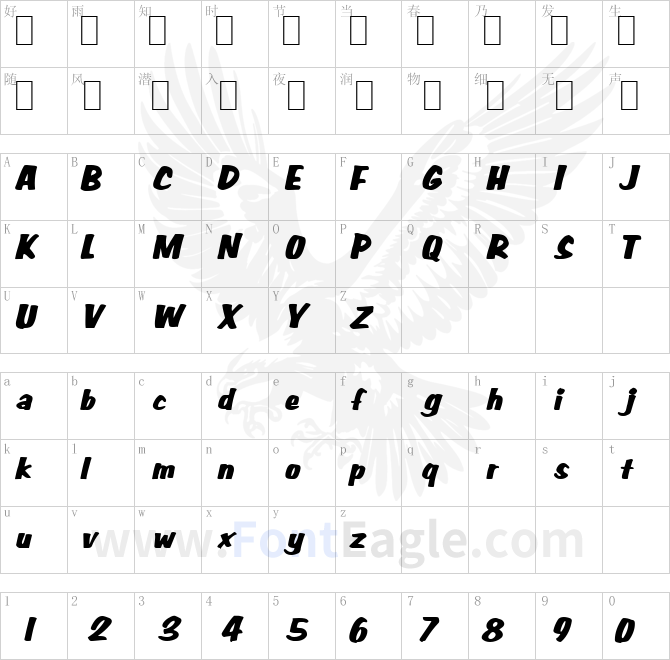
- Font name:Big Nib-Extended
- Font Full Name:Big Nib-Extended Italic
Big-Nib-Extended-Italic is a great font, widely used in graphic design, single-page menu design, poster design and other fields, and is deeply loved by designers.Big-Nib-Extended-Italic download.